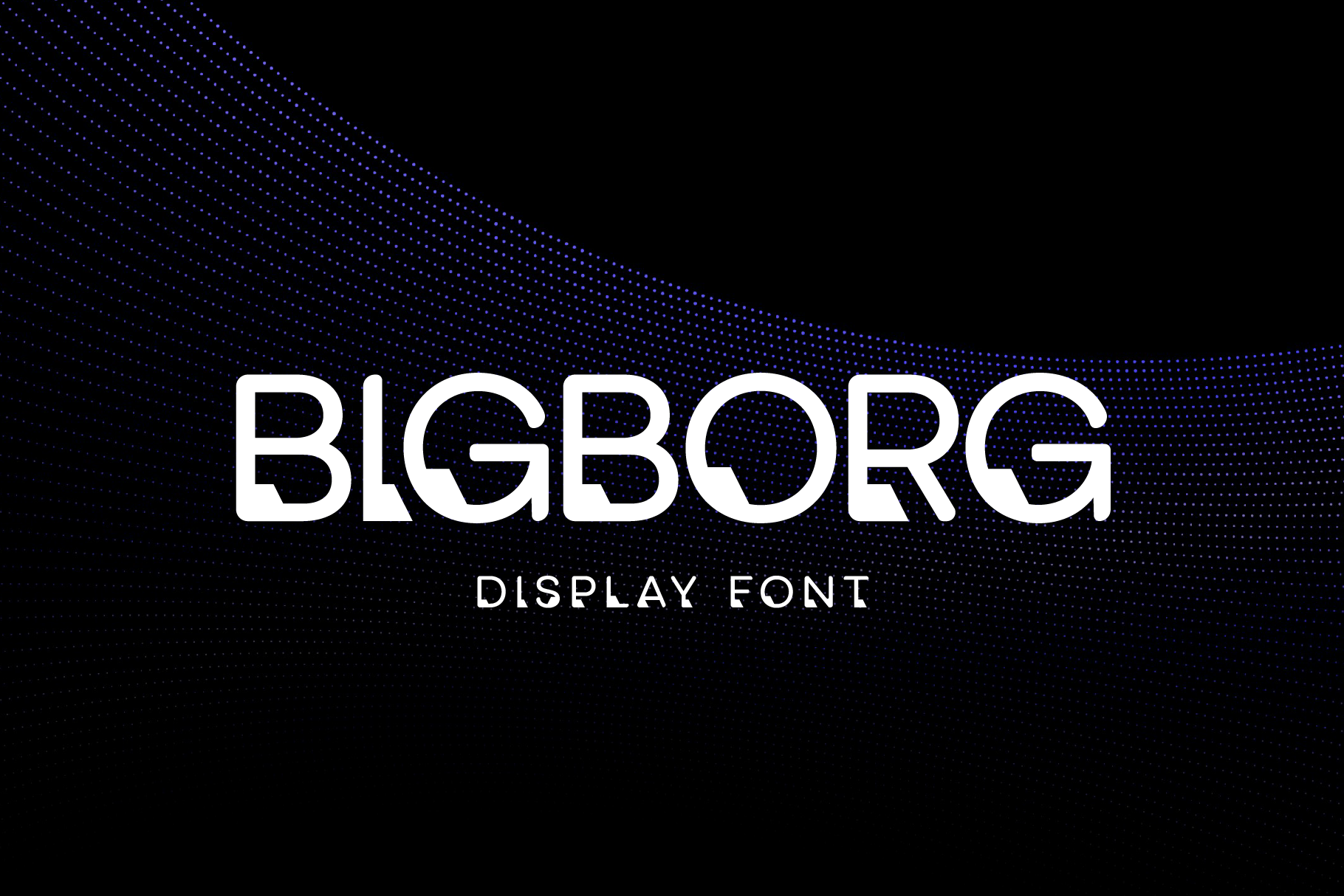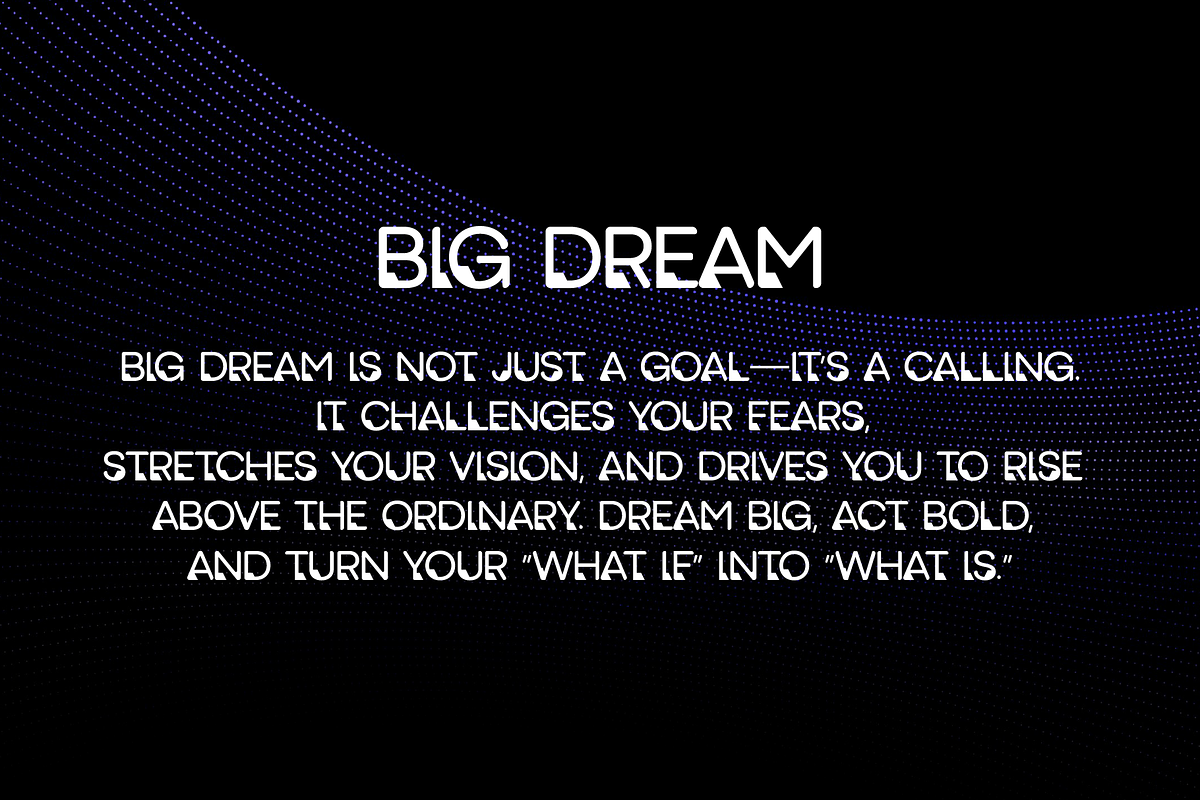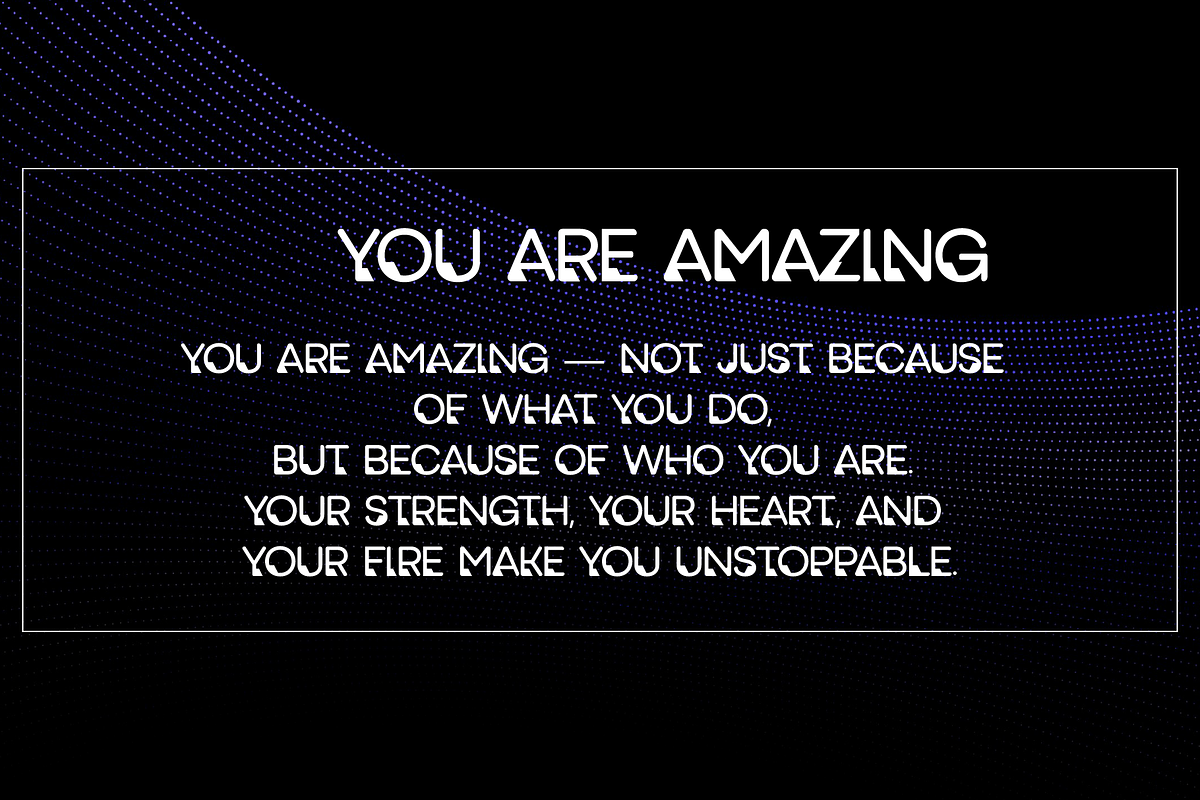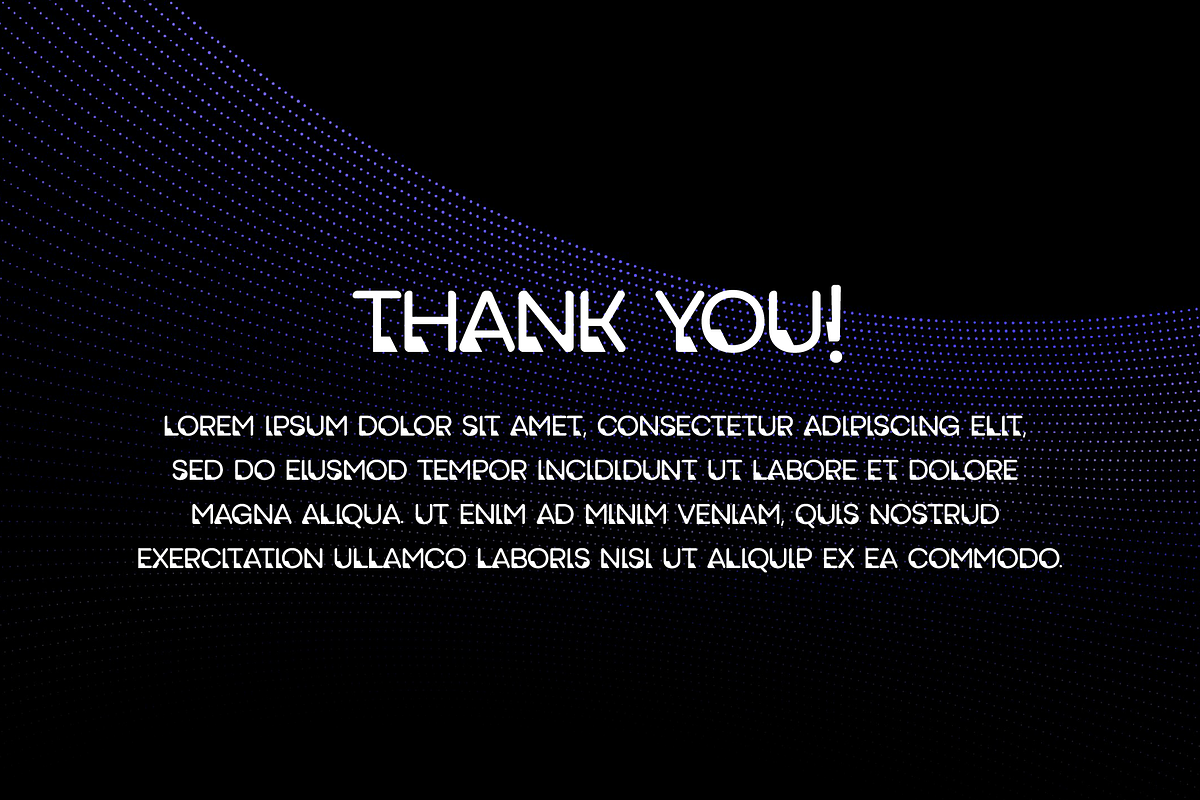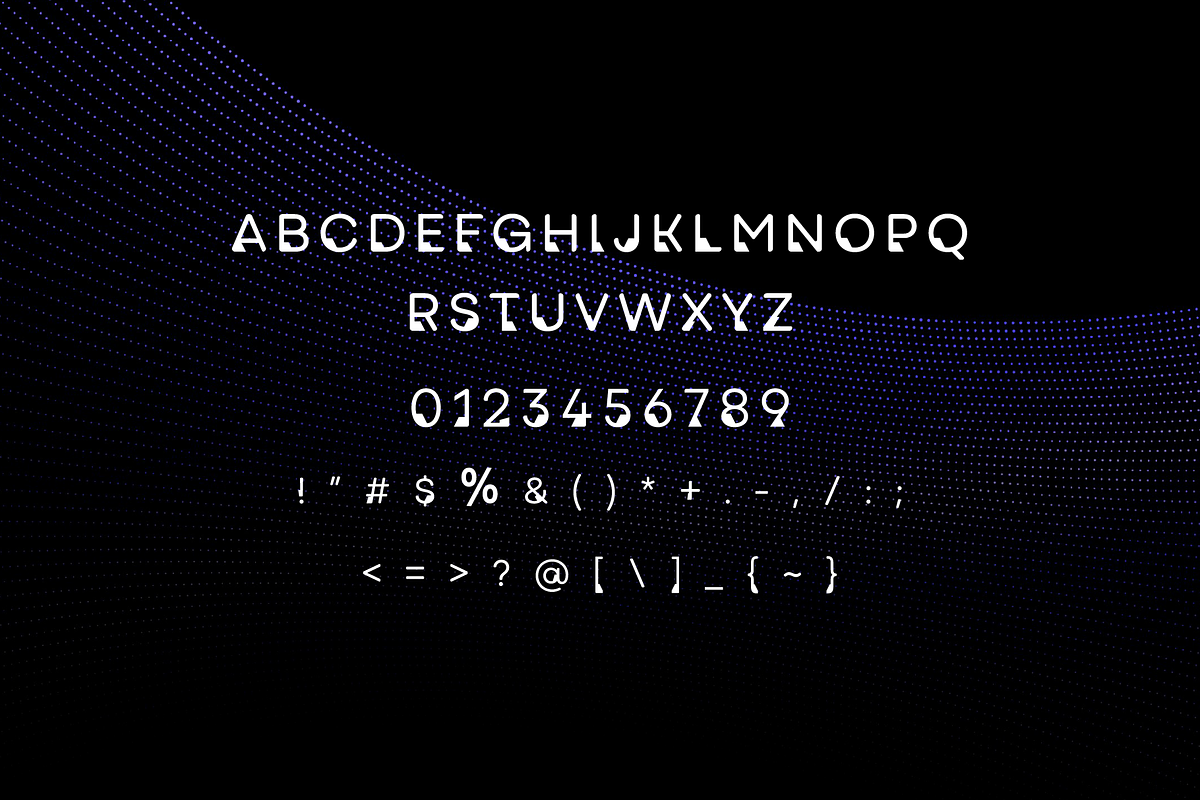
Bigboarg Robotic Display Font
Bigborg is a new addition to the world of typography. This font is casual, friendly, and perfect for any kind of creative endeavor you may be using.
Contains all capital letters, numbers, and basic punctuation.